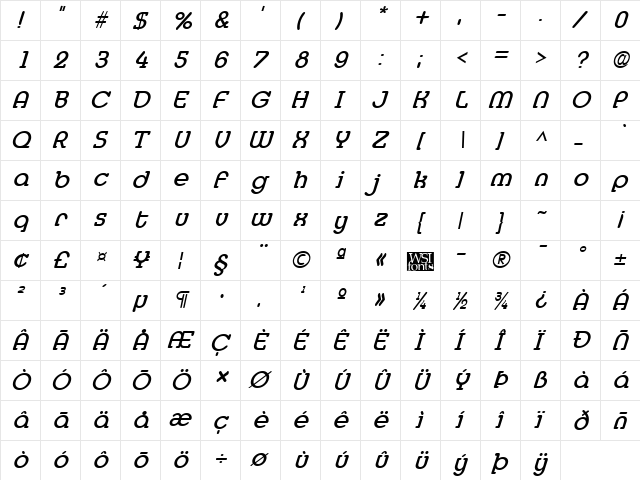
Medfly Bold Italic
Design Context for Medfly Typeface
Medfly is a composed and adaptable typeface that performs quietly and consistently across a wide range of design contexts. The dynamic lean of this cut emphasises speed and emphasis in any layout. The heavy weight commands attention and anchors typographic hierarchies.
Pro Tip: Try Medfly for annotation and caption copy alongside an upright companion — the contrast in angle creates a dynamic but ordered typographic system.